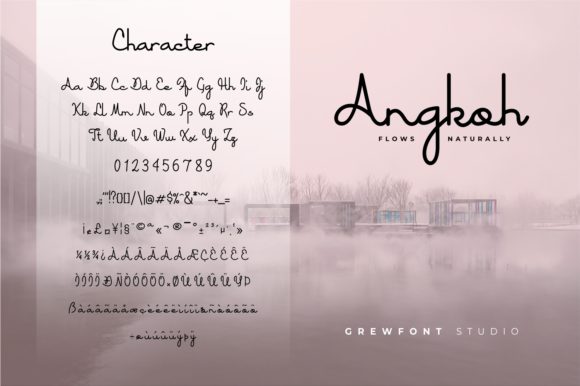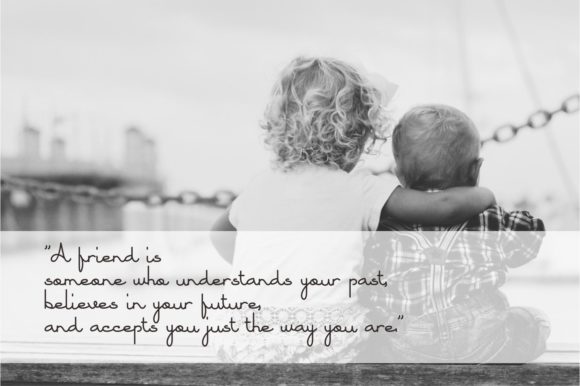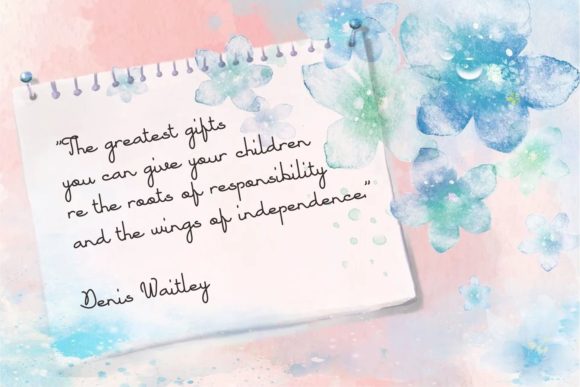
The Magical World of Angkoh Font: A Designer’s Delight
I’ll never forget the time I was working on a DIY project for a client’s wedding invitation. I had the perfect design concept, but I was struggling to find the right font to bring it all together. That’s when I stumbled upon Angkoh Font, and it was love at first sight! 💕 This enchanting handwritten font has been a game-changer for my design projects, and I’m excited to share its magic with you.
An Honest Review of Angkoh Font
• ✨ Smooth and modern lines that give it a fresh feel
• ✅ Unique and elegant handwritten style that’s perfect for making a statement
• 💫 Highly versatile and can be used for a wide range of design projects, from wedding invitations to social media graphics
• 🎨 Beautifully crafted to add a touch of personality to any design
While Angkoh Font is an amazing addition to any design project, there are a few things to keep in mind: 🤔
• ⚠️ Some of the more intricate glyphs may not display correctly on older devices or browsers
• ⚠️ May require a bit of experimentation to get the perfect combination of OpenType features and stylistic alternates
The Story Behind Angkoh Font
Angkoh Font was designed with the intention of creating a beautiful, modern handwritten font that would bring a touch of elegance to any design project. The designer wanted to create a font that was both unique and versatile, with a range of OpenType features and stylistic alternates to make it easy to use and customize.
Q: What type of projects is Angkoh Font best suited for?
Angkoh Font is perfect for a wide range of design projects, including wedding invitations, social media graphics, branding materials, and more.
Q: Is Angkoh Font easy to read?
Yes, Angkoh Font is designed to be highly legible, even at smaller font sizes.